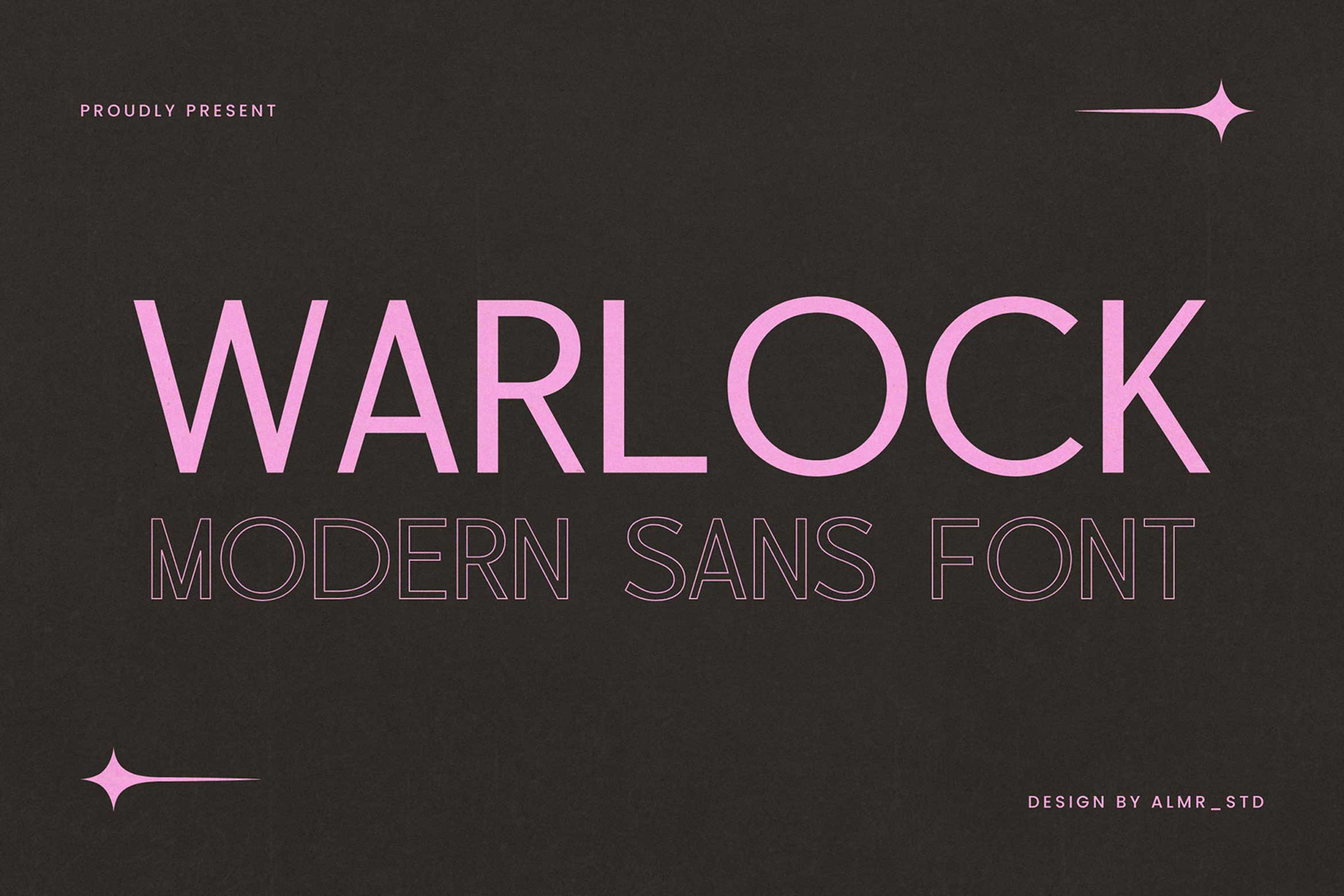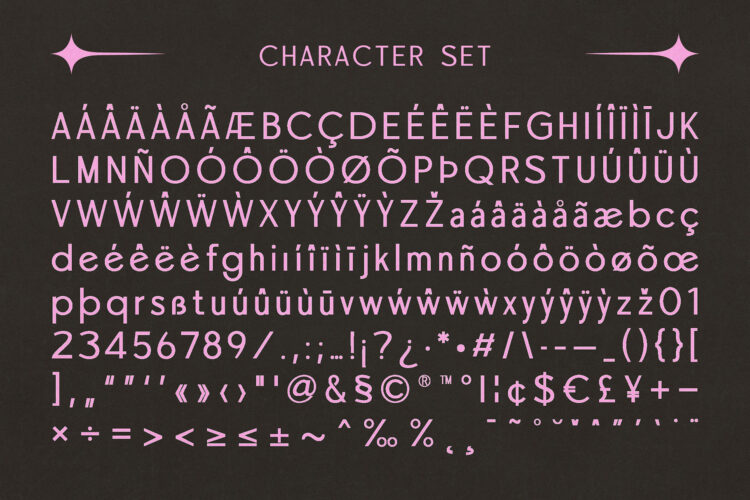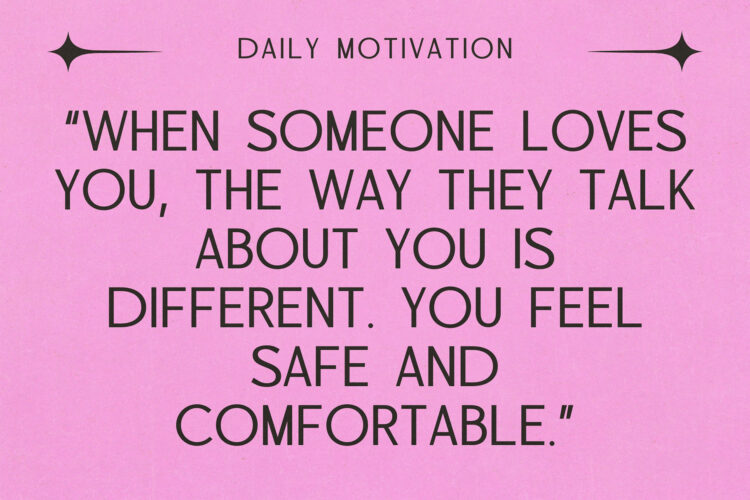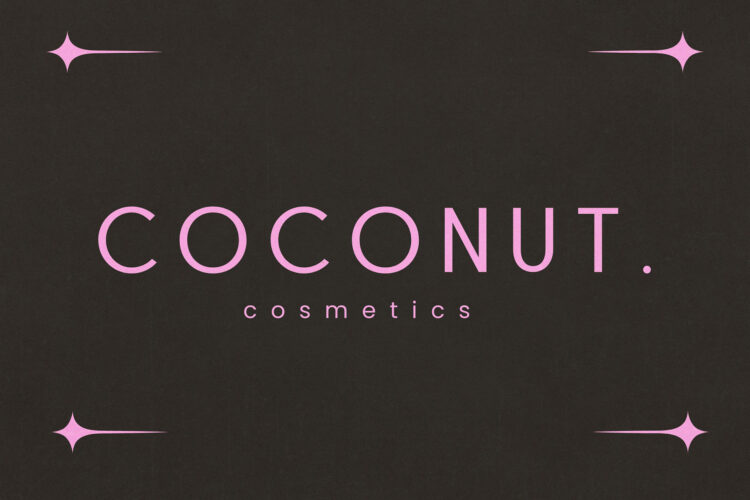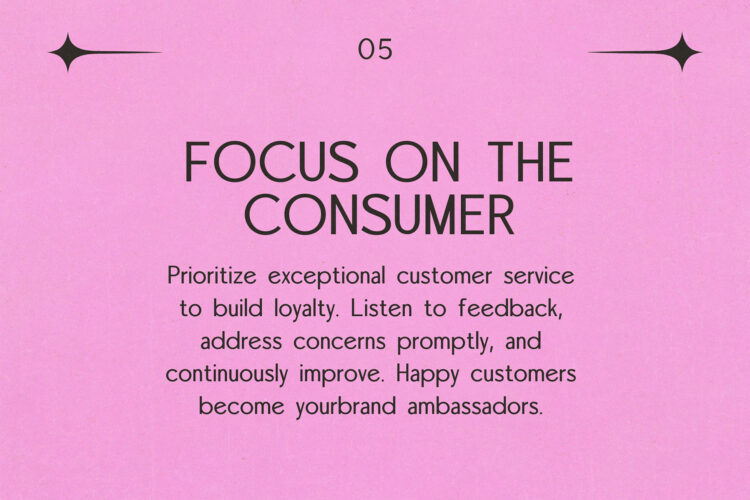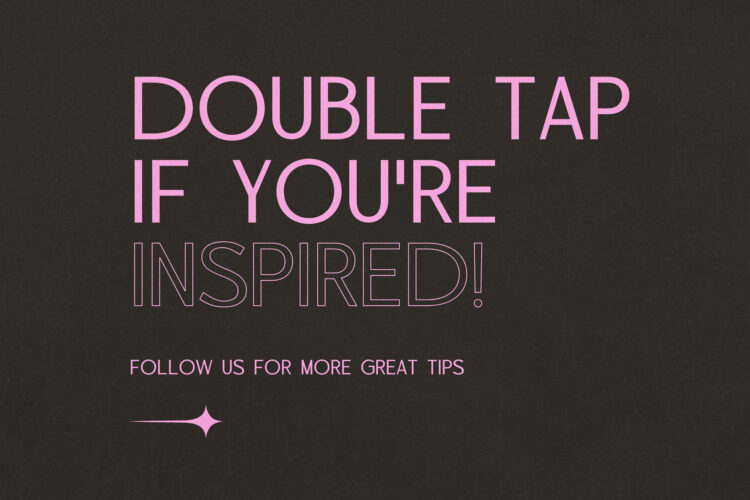
Introducing our new Warlock, modern sans serif font with elegant style this is perfect for branding, logos, invitation, magazines, product packaging and more.
Warlock – Modern Sans